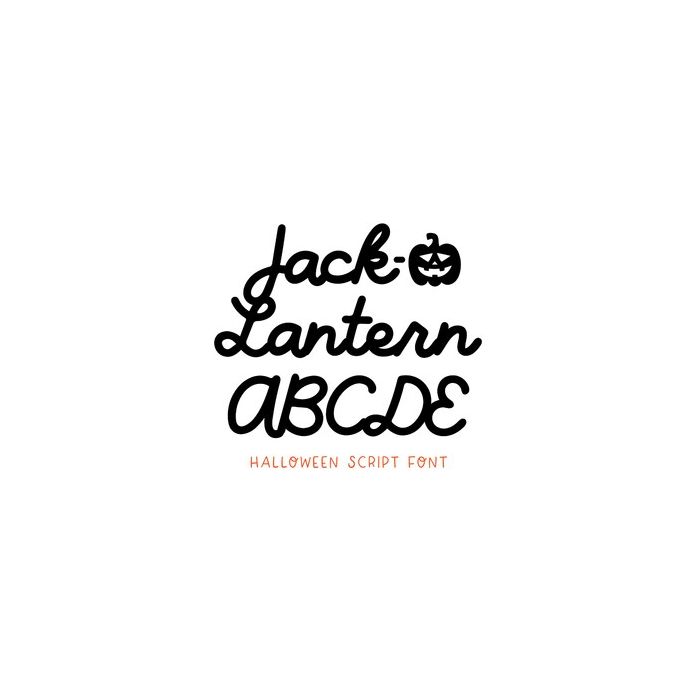
BFC Jack O Lantern Halloween Cursive Pumpkin Font
Jack O Lantern is a spooky handwriting Halloween script font. This is a Halloween version of our font Hello Flower.